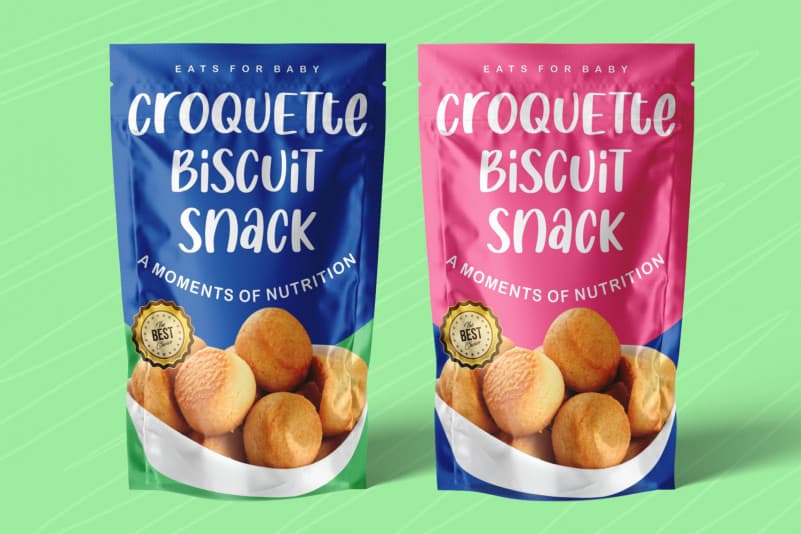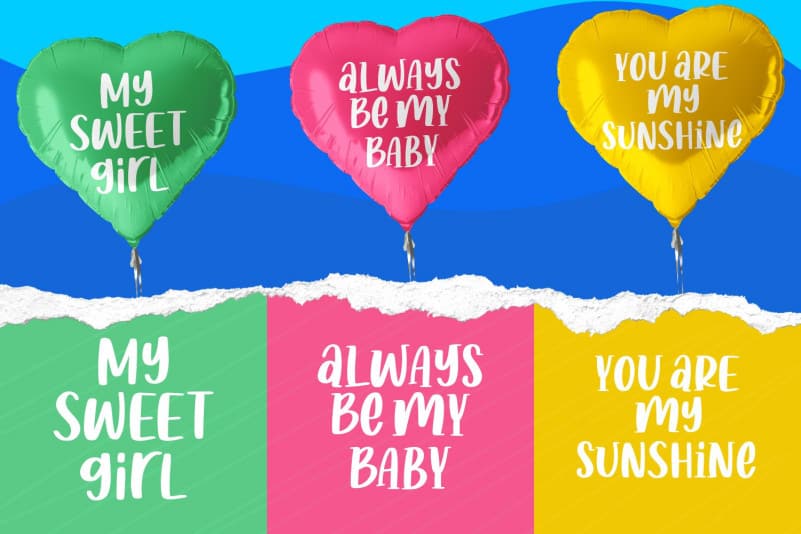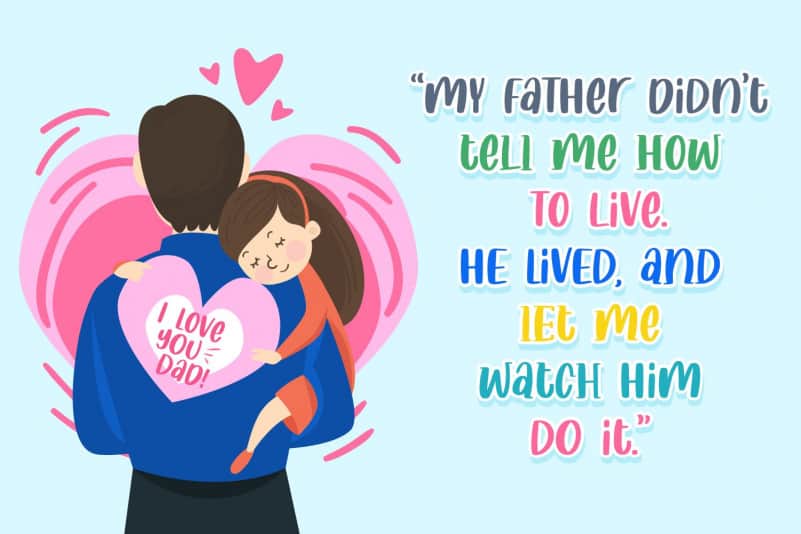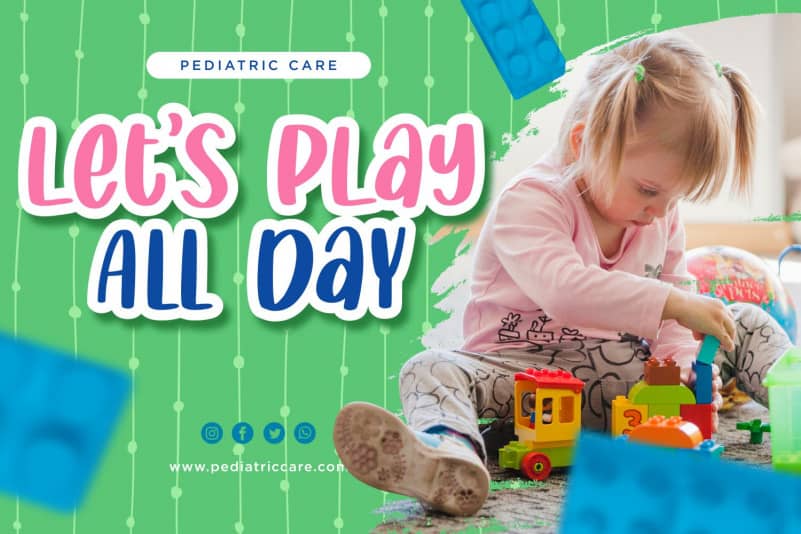
Twist Jelly Display Font is a sweet and friendly display font. Add this trendy and cute font to each of your designs and you will absolutely love the results!